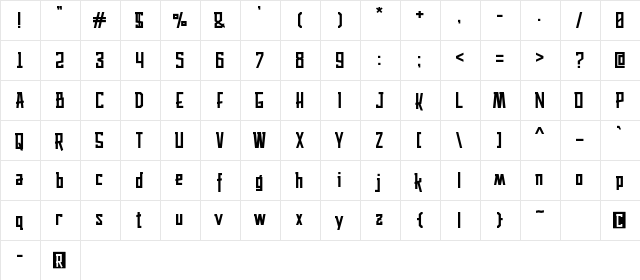
Husaeni Regular
Design Context for Husaeni Typeface
Husaeni offers clean, dependable letterforms without strong stylistic allegiance, making it a practical choice for designers who need flexibility.
Pro Tip: Use Husaeni in both headline and body roles to test its range before committing to a single application.